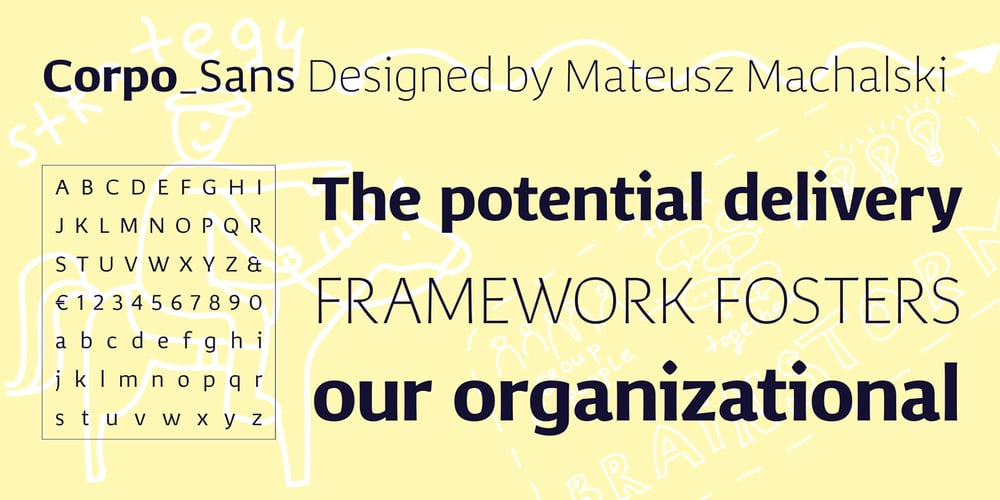
Corpo Sans Font Family was designed by Mateusz Machalski and published by Machalski. Corpo Sans contains 12 styles and family package options. Corpo Sans is REFRESHED version of my old font Korpo Sans. Corpo Sans is a sans type family with a friendly feel. This type contains 12 variants with 6 weights.The high contrast and high x height is perfect for headlines and display uses. Corpo Sans is great complement for Corpo Serif.